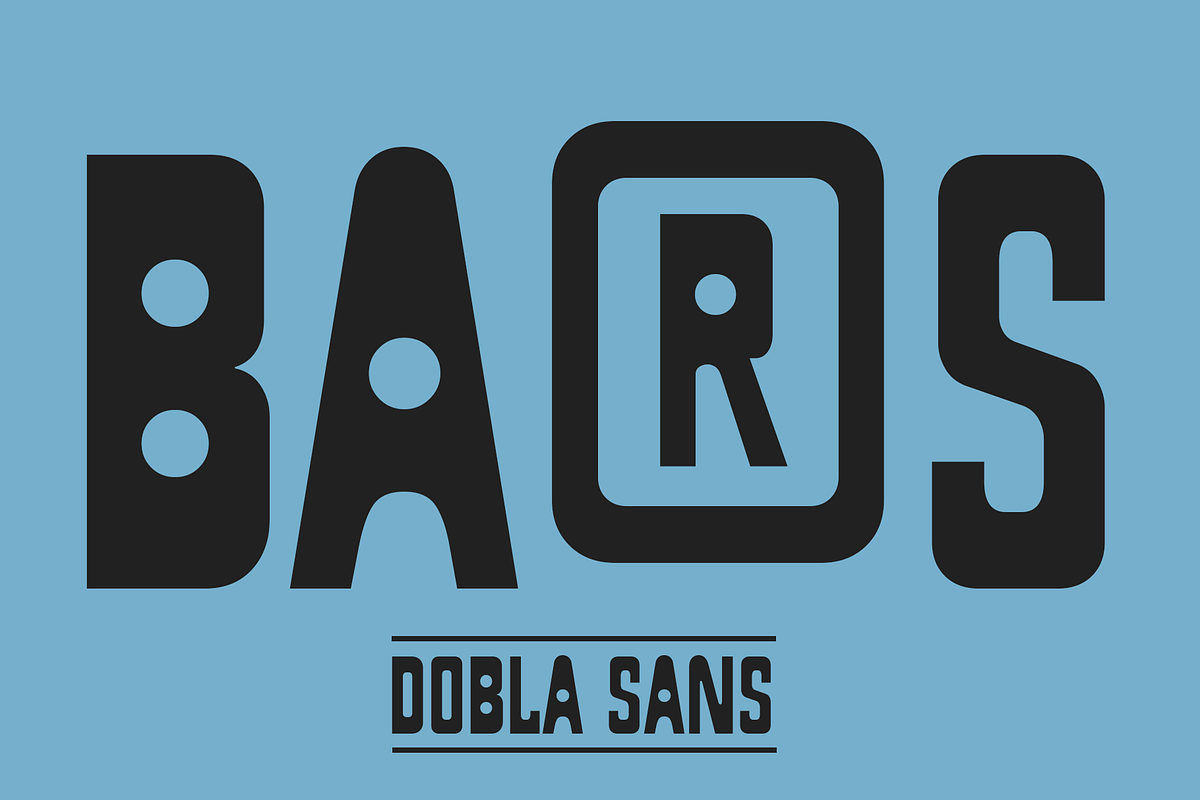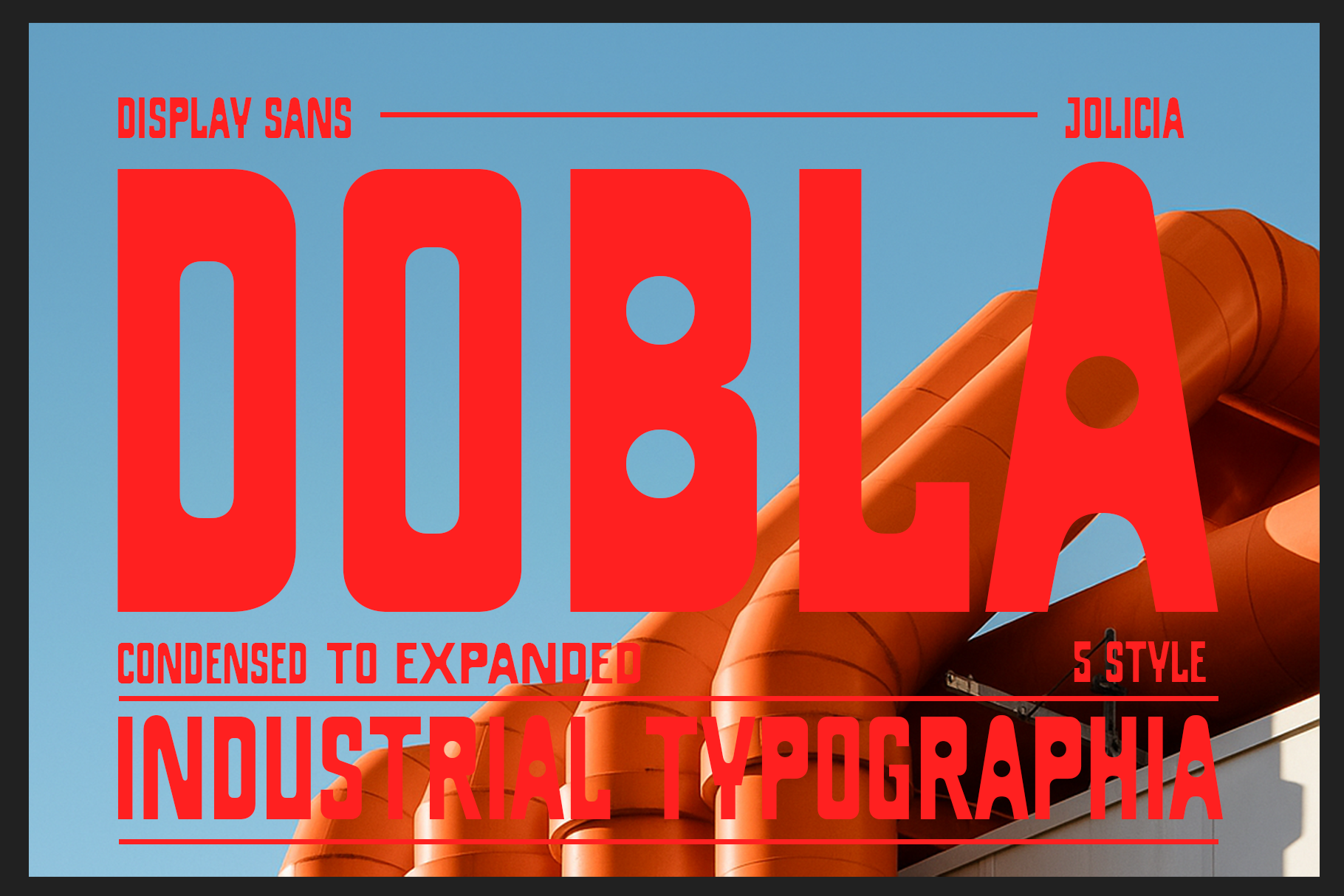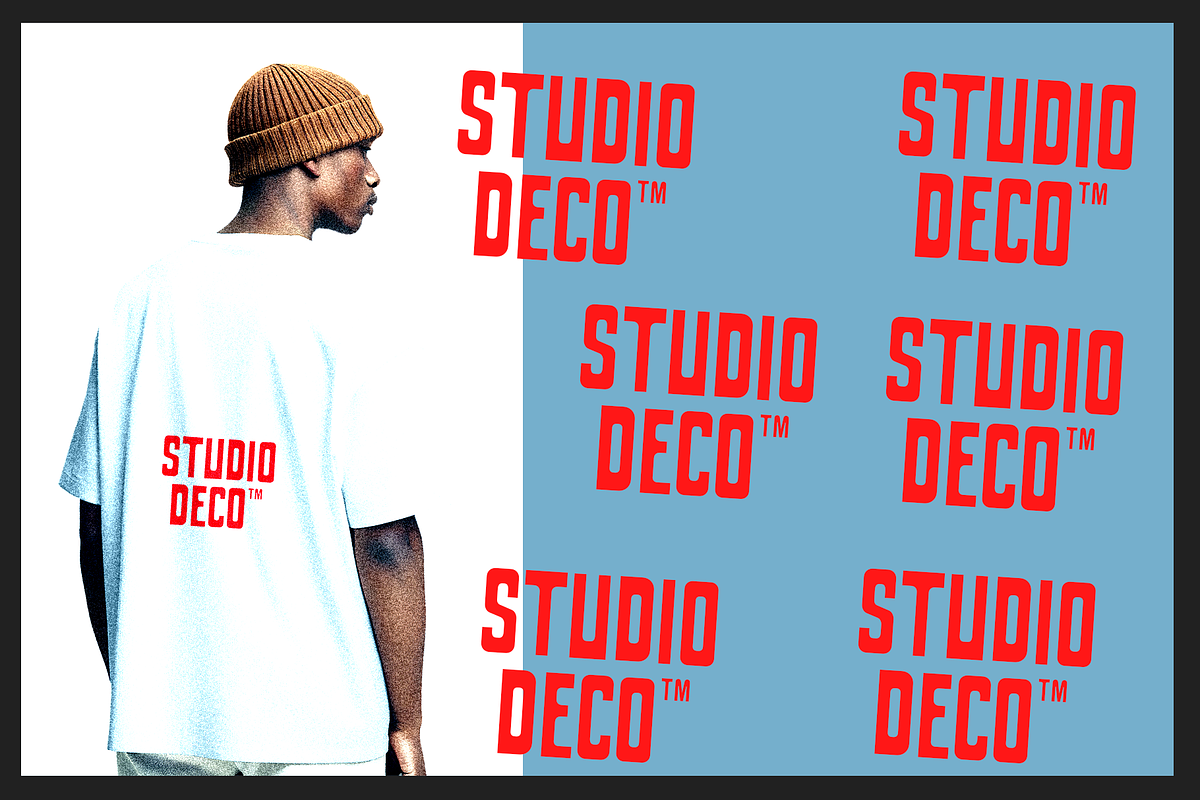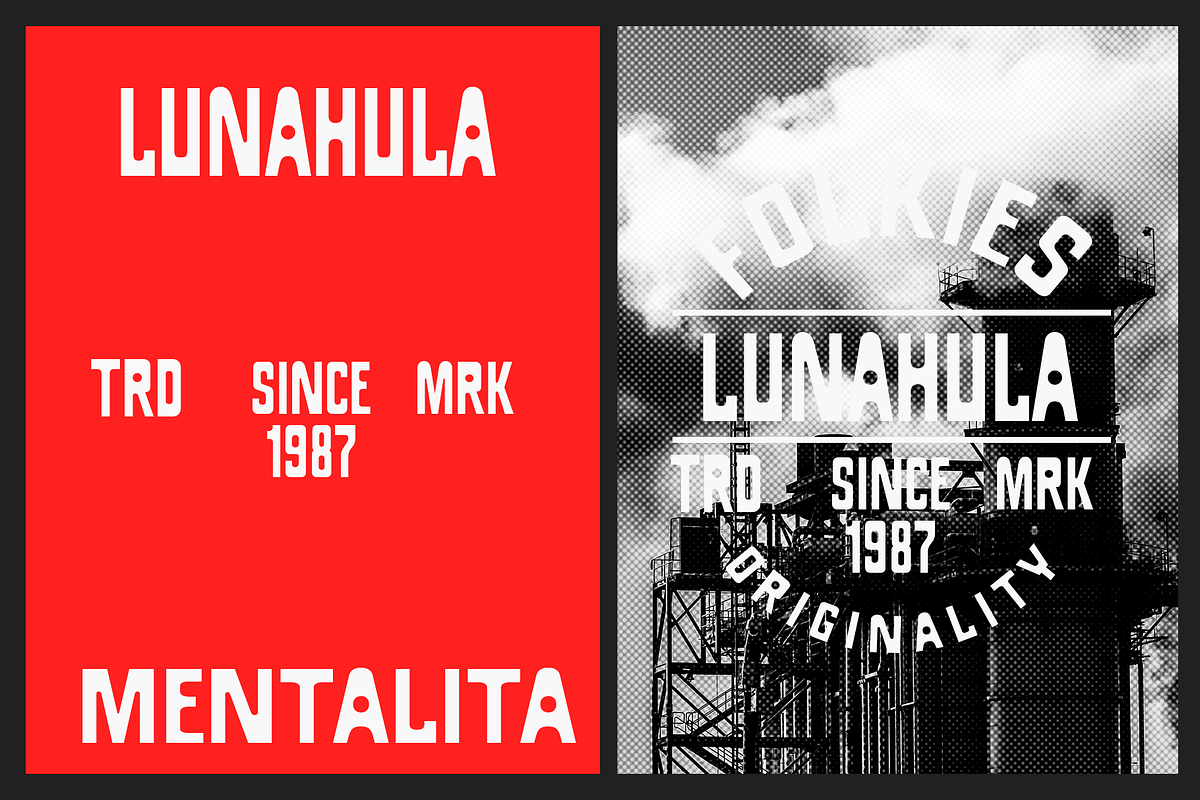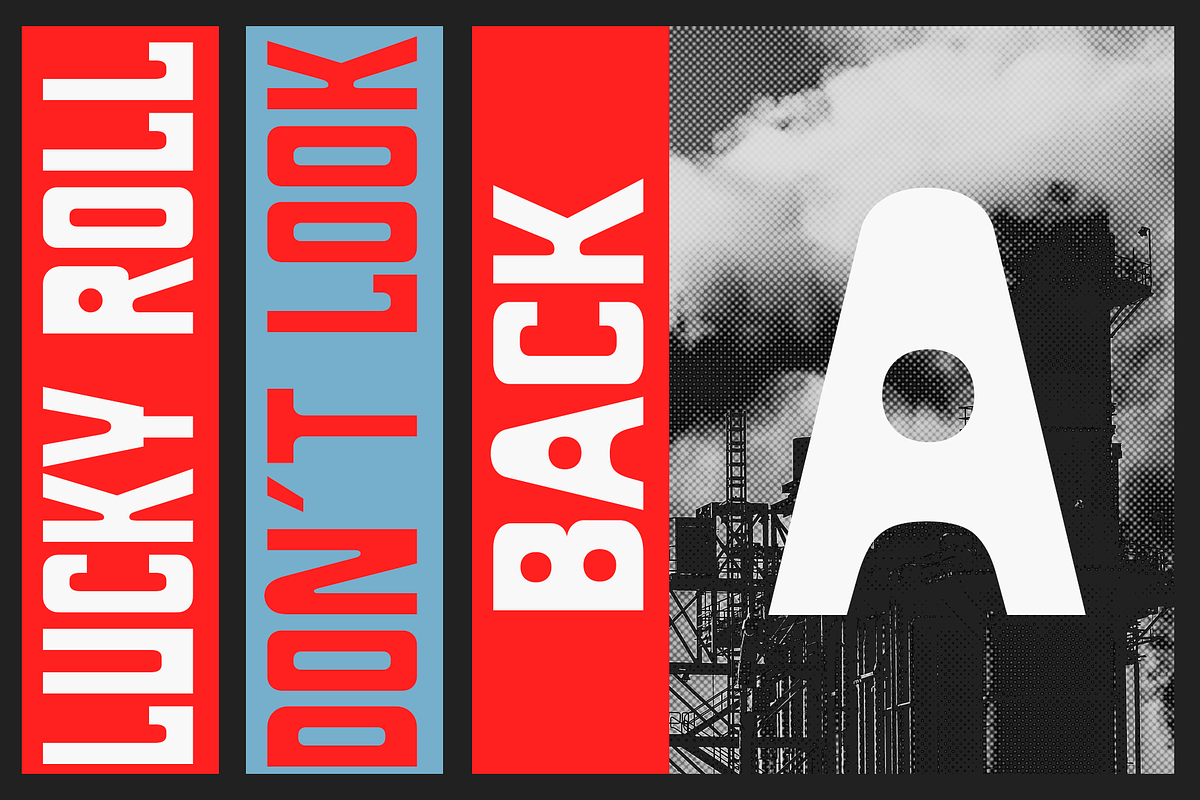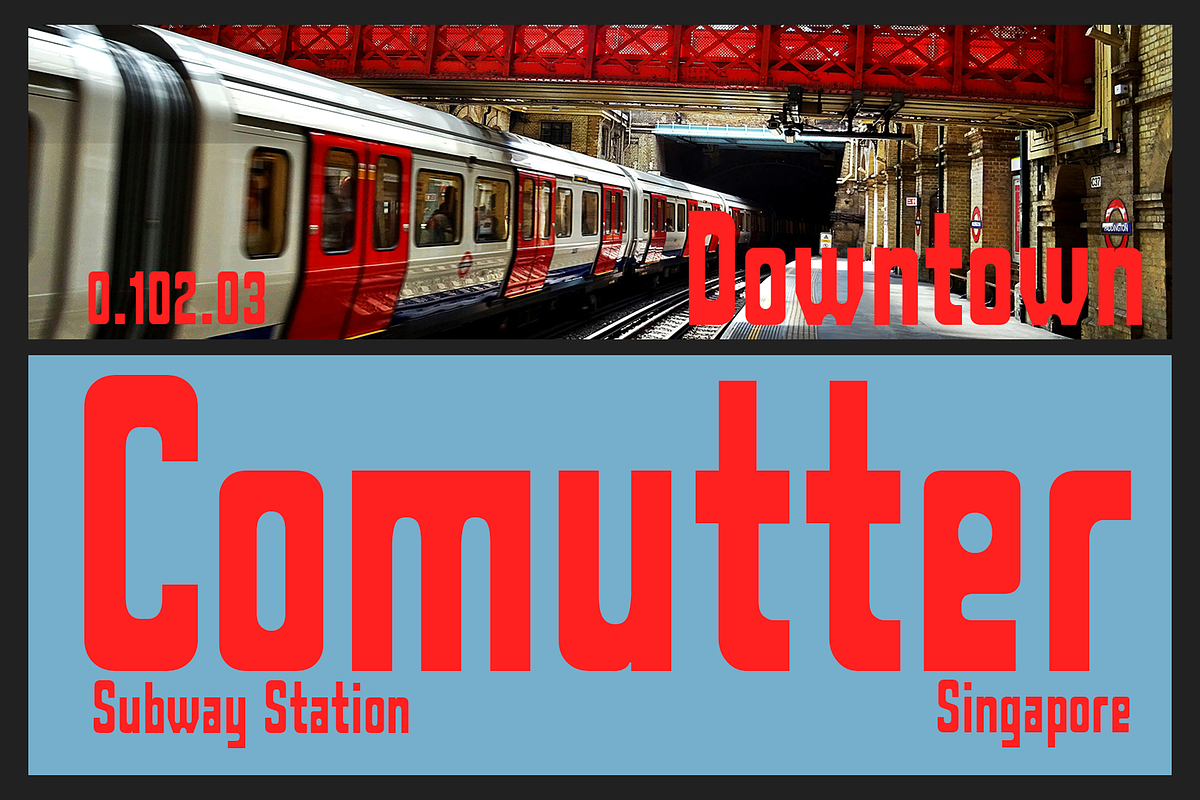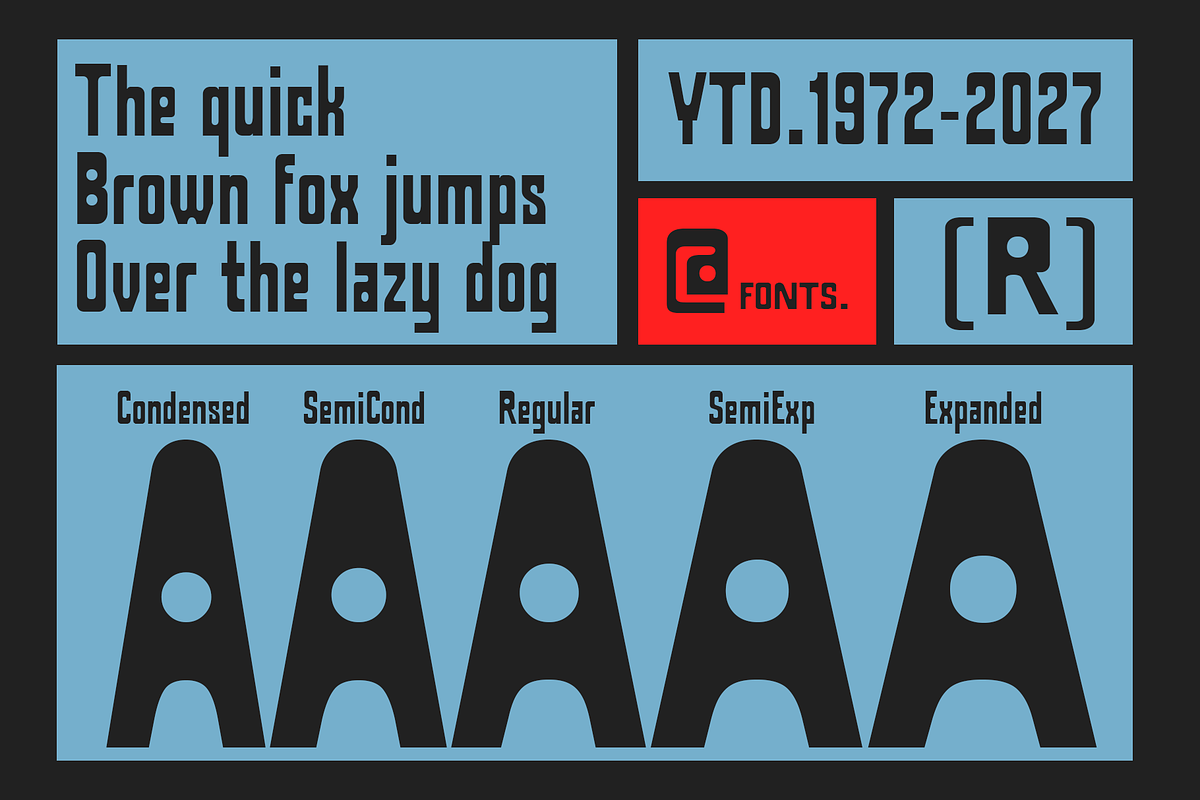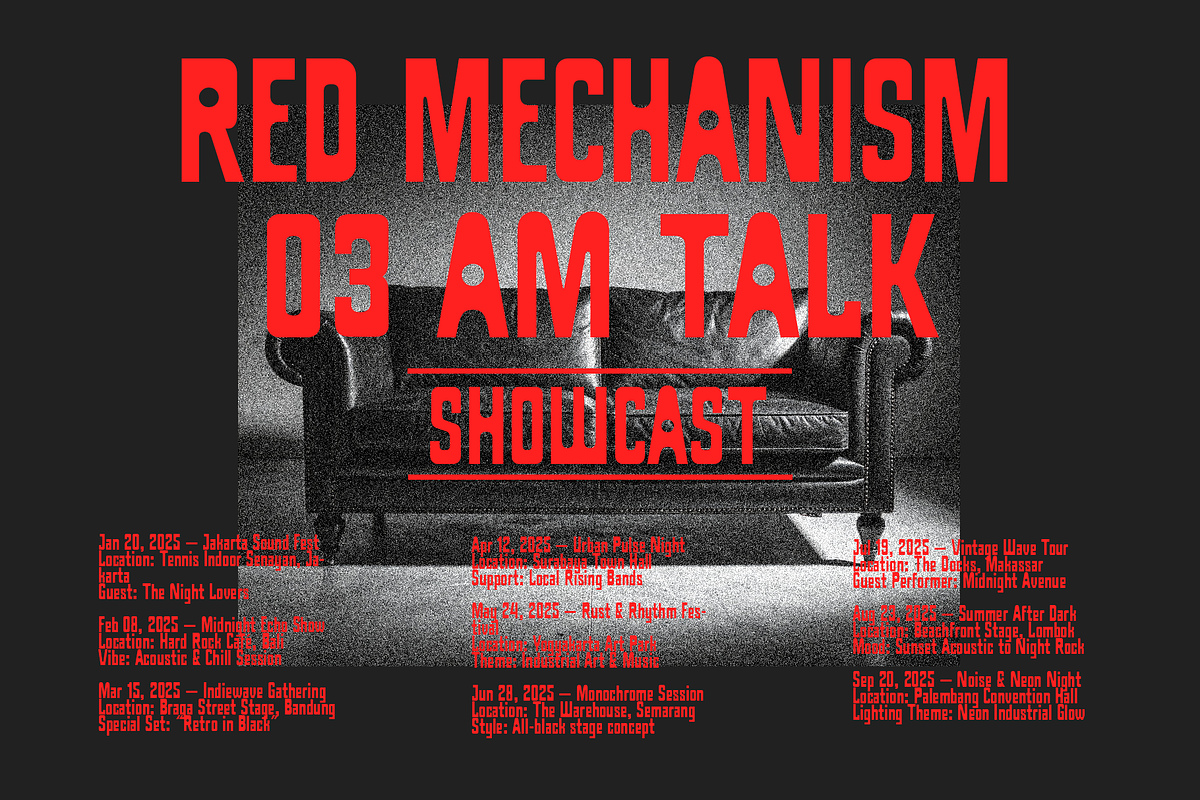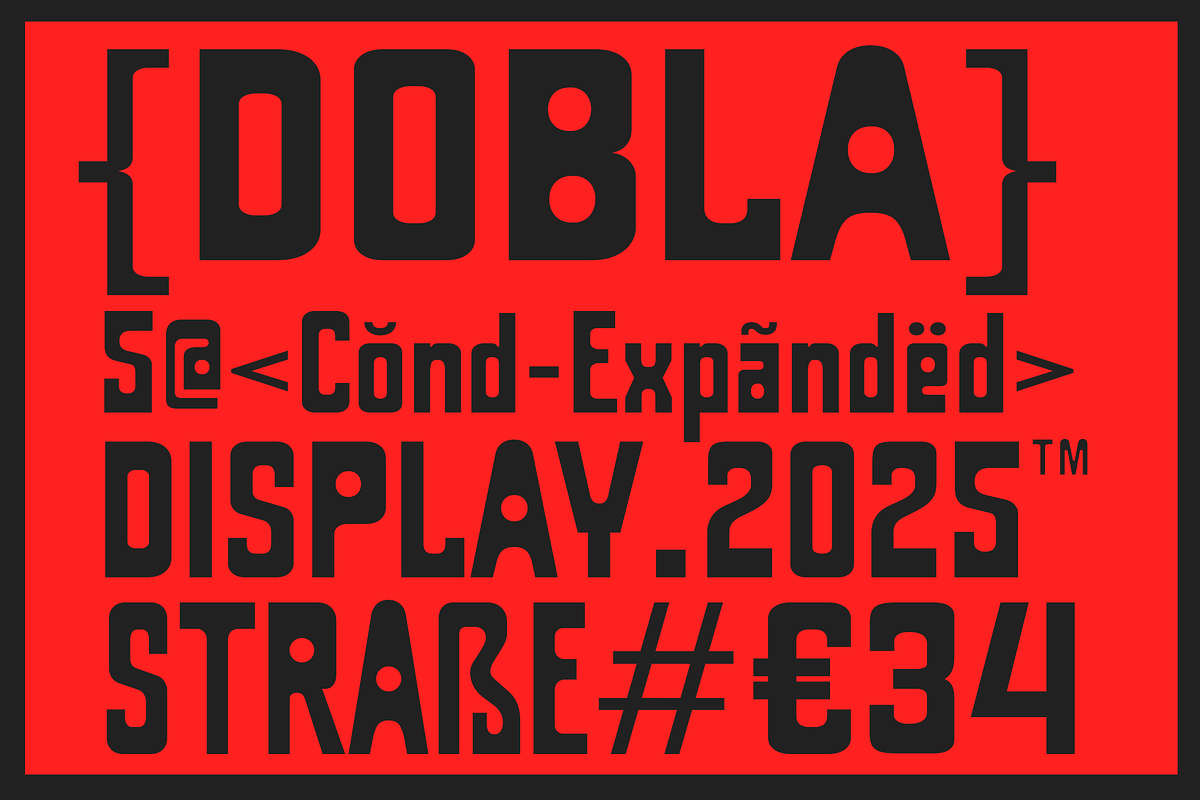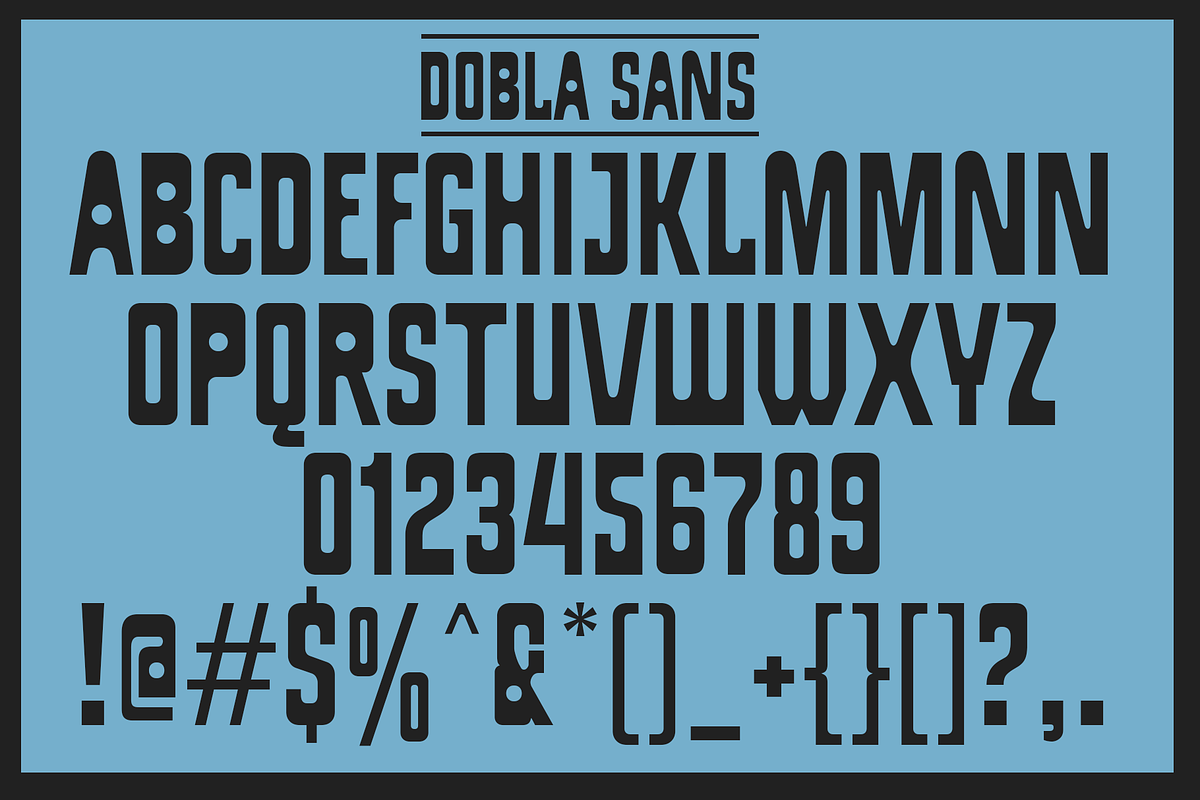
Dobla Sans | Industrial Font
Dobla Sans is a commanding display sans-serif typeface engineered for strength, impact, and high functionality. It draws its inspiration from the raw, imposing aesthetic of heavy industrial architecture and the robust engineering of factory machinery. With its clean, assertive geometric forms and subtly rounded edges, Dobla delivers a sense of enduring modernity and unyielding structure. Uniquely designed with 5 distinctive styles, the Dobla Sans family offers an impressive range, spanning from Condensed to Expanded. This remarkable width flexibility allows designers to precisely control space and emphasis, making it perfect for eye-catching headlines, aggressive branding, dominant industrial signage, and daring product packaging.Inject an authentic sense of Industrial Typography into your next design project—bold, straightforward, and inescapable. Dobla Sans is more than just a font; it is a statement built for a massive scale.